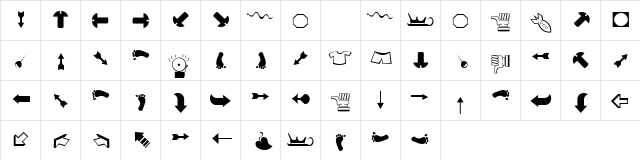
A&L Dingbats 2 Normal Font Preview
A&L Dingbats 2 Normal
Design Context for A&L Dingbats 2 Typeface
A&L Dingbats 2 is a composed and adaptable typeface that performs quietly and consistently across a wide range of design contexts.